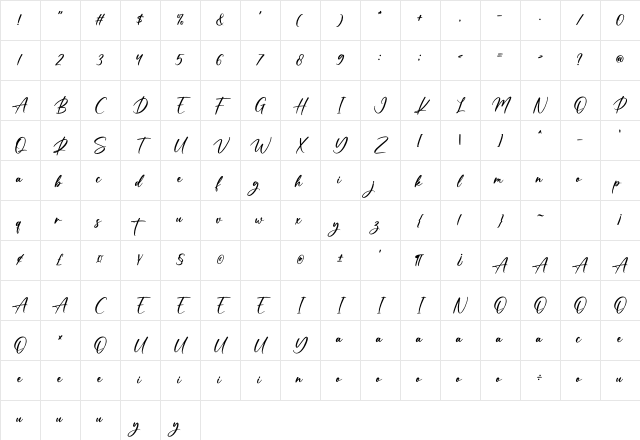
Rosaline Signature Regular Free Font
Rosaline Signature Regular
Foundry: Graphix Line Studio
Designer: Aldi Raya Pradipta
Complete Rosaline Signature Regular glyph index. Displaying only characters natively supported by Rosaline Signature Regular font.
Design Context for Rosaline Signature
Rosaline Signature is a composed and adaptable typeface that performs quietly and consistently across a wide range of design contexts.